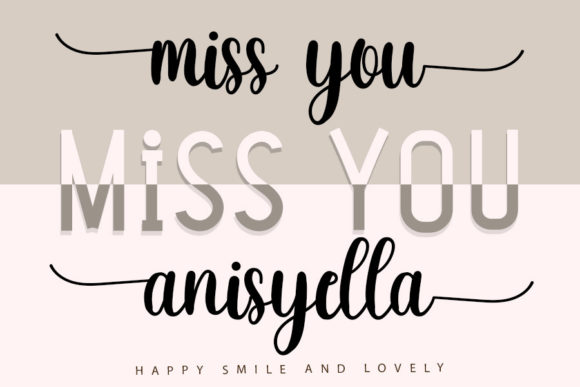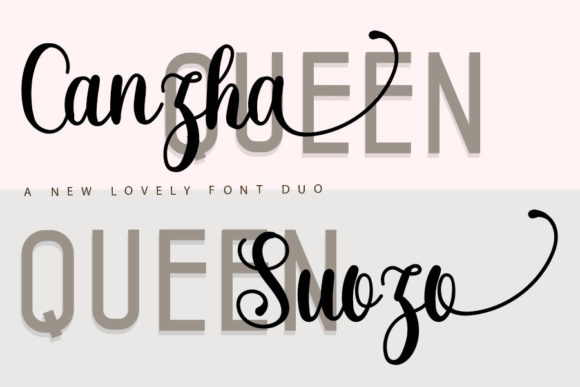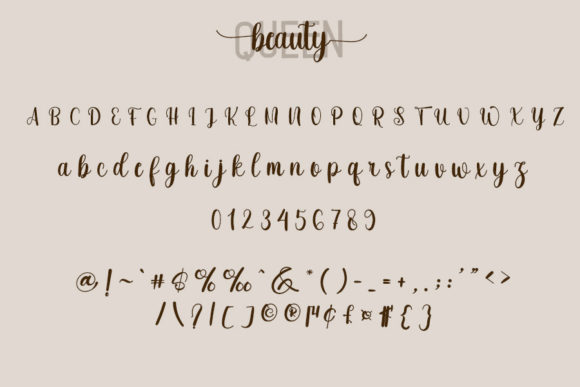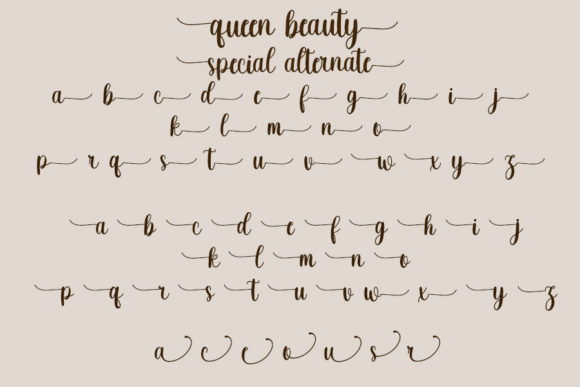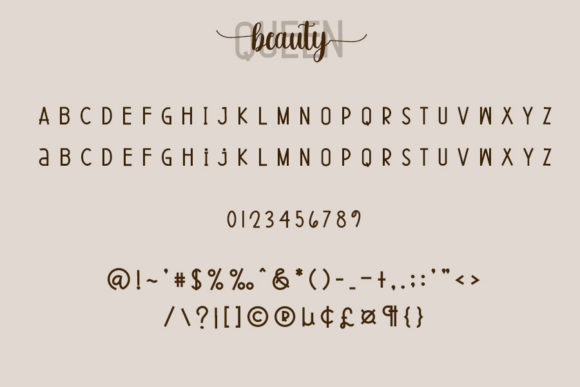
About Queen Beauty Font
Queen Beauty is a stunning and comprehensive duo font (script and sans serif), ideal for giving your projects a branded but friendly feel. The two included styles can be combined together perfectly but are also beautiful on their own.